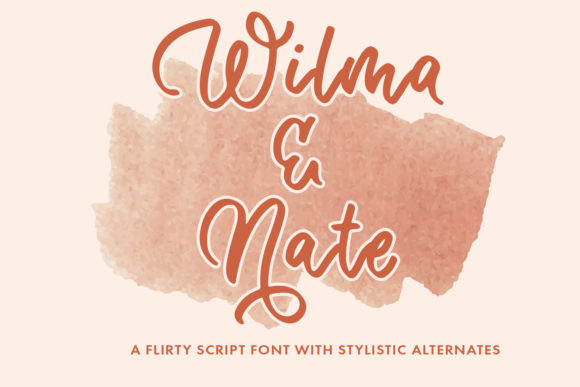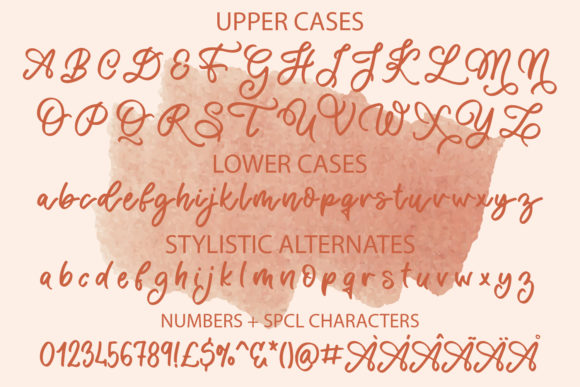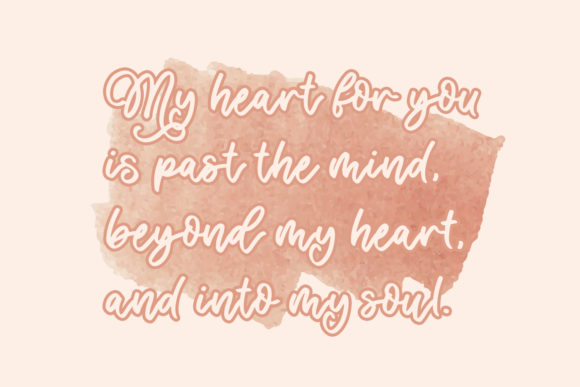
About Wilma & Nate Font
Wilma & Nate is a delicate and elegant handwritten font. Its natural and unique style makes it incredibly fitting to a large pool of designs. The only limit is your imagination!